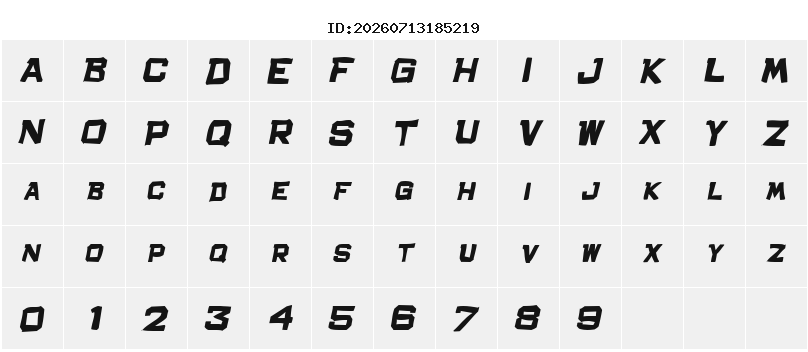
Bachelor Pad Crud JL Preview
• Font Name: Bachelor Pad Crud JL
• Designer: Jeffrey n. Levine
• Manufacturer: Jeff's Fonts & Dingbats
• Description: An italic version of "Bachelor Pad JL, with a crusty effect added.
Bachelor Pad Crud JL.ttf is a modern, elegant sans-serif font designed for ultimate readability and visual harmony. Perfect for branding, headlines, web design, and print materials.